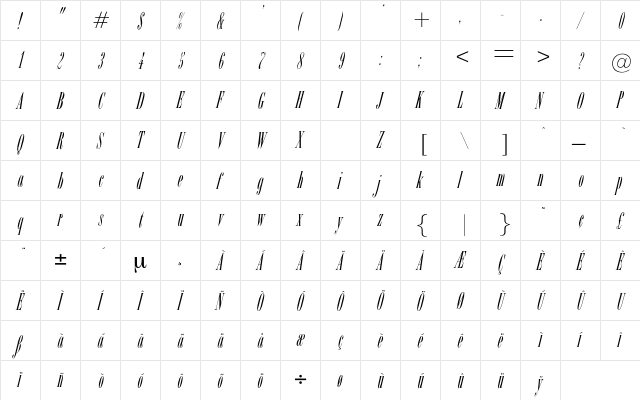
CutterItalic Regular
Design Context for CutterItalic Typeface
CutterItalic takes a measured approach to typography — its balanced proportions and neutral character make it a reliable workhorse for both digital and print work. Its italic angle brings a sense of urgency and motion to the letterforms.
Pro Tip: Try CutterItalic for annotation and caption copy alongside an upright companion — the contrast in angle creates a dynamic but ordered typographic system.